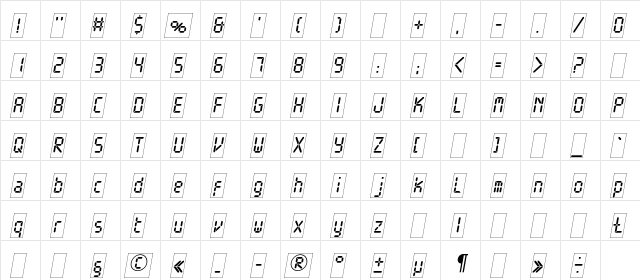
ElectronicaWhiteC Italic
Design Context for ElectronicaWhiteC Typeface
ElectronicaWhiteC is a composed and adaptable typeface that performs quietly and consistently across a wide range of design contexts. Its italic angle brings a sense of urgency and motion to the letterforms.
Pro Tip: Use ElectronicaWhiteC for emphasis, pull quotes, and subheadings where its slanted energy can add rhythm to the layout.